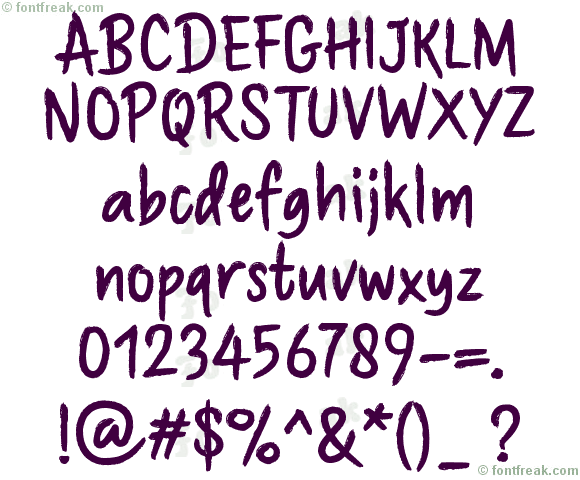
Brushaff
About Brushaff
Brushaff, designed by Situjuh Nazara in 2017, is a captivating display font that embraces a handwritten style. This unique typeface showcases a bold and expressive character, making it perfect for various creative applications. The strokes of Brushaff feature a rugged, brush-like quality, with varying weights that add a sense of dynamism and energy to the text. The high contrast between thick and thin lines, along with its irregular spacing, contributes to a lively aesthetic that captures attention and evokes creativity.
Brushaff is an excellent choice for a range of design projects. Its distinctive look makes it ideal for wedding invitations, where an informal yet elegant touch is desired. Additionally, this font works wonderfully for movie posters, infusing them with a sense of excitement and movement. Restaurant menus can also benefit from Brushaff, as its playful character can enhance the dining experience by reflecting a casual and welcoming atmosphere. Furthermore, content creators looking to make their social media graphics stand out will find this font invaluable in capturing their audience's interest.
What sets Brushaff apart is its ability to combine artistry with versatility. Whether used in digital or print formats, this font offers a refreshing take on handwritten typography, making it a standout choice for anyone looking to elevate their design work. For those interested, Brushaff font free download allows you to explore its potential in your next creative endeavor.